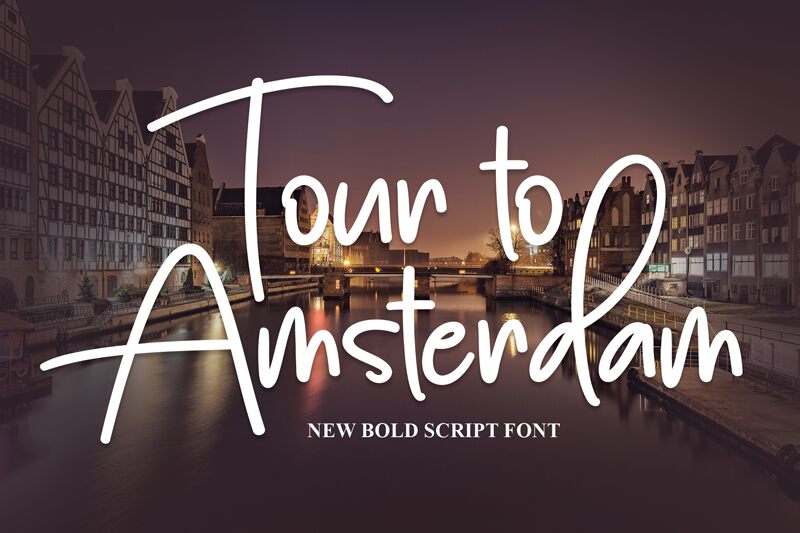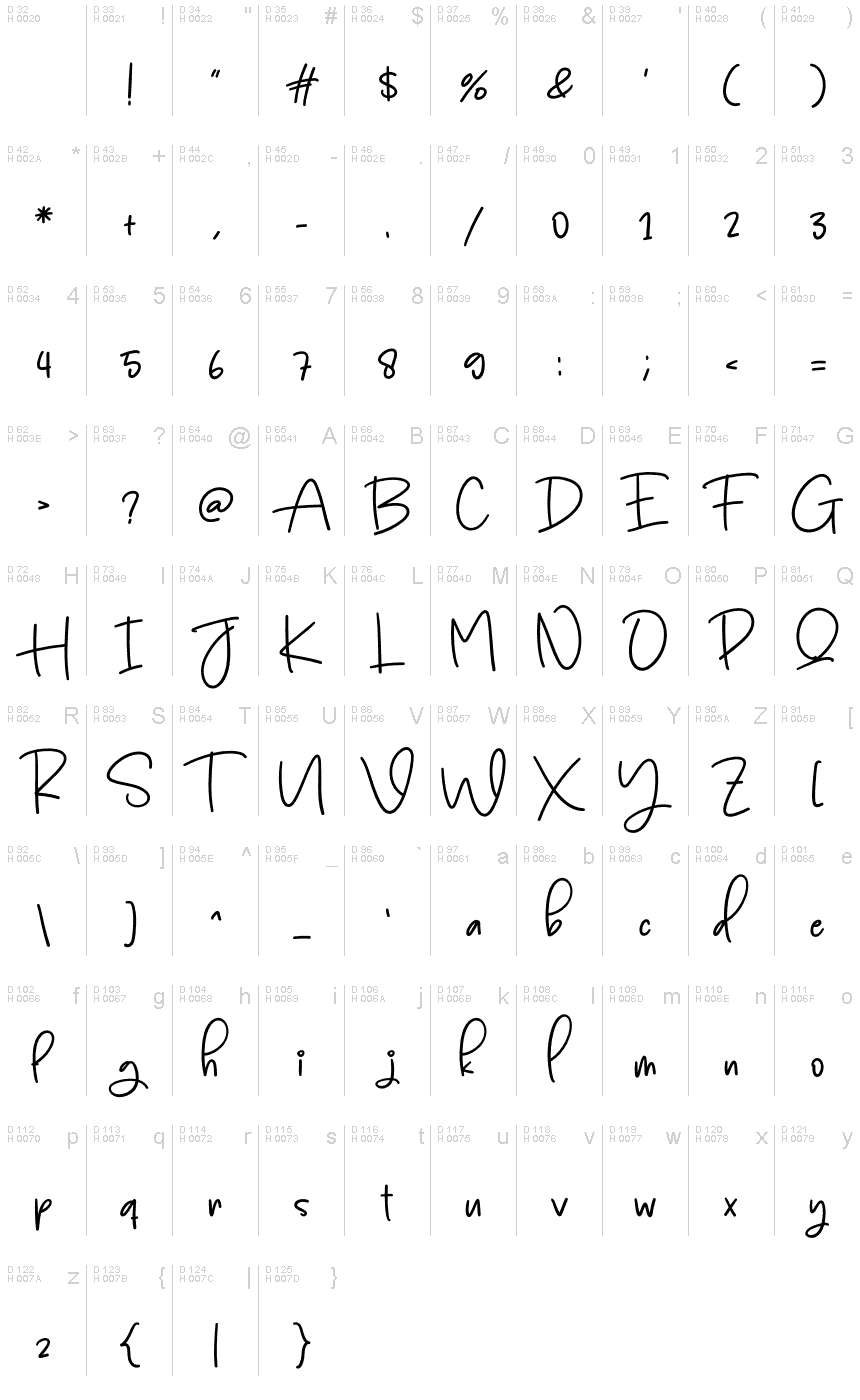
Tour To Amsterdam
Tour to Amsterdam is a casual handwritten font by Scratchones. With its semi-light weight, this font captures the essence of carefree adventures and travel diaries.
Its playful strokes and organic feel make it perfect for travel blogs, scrapbooking projects, and destination guides. Add a touch of wanderlust to your designs with Tour to Amsterdam – whether it's for postcards, travel posters, or even wedding invitations.
Let your creativity take flight as you embark on a typographic journey with this delightful font!
The latest style letters are perfect for wall displays, wedding invitations, social media post logos, advertisements, product packaging, product designs, labels, photography, watermarks, invitations, stationery, and any project that requires taste handwriting.